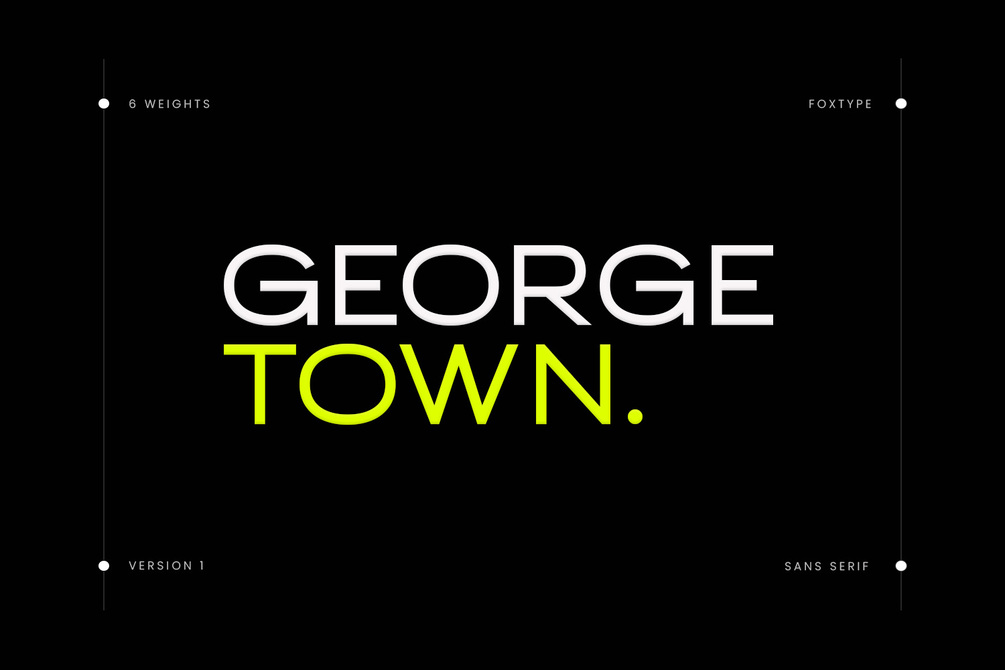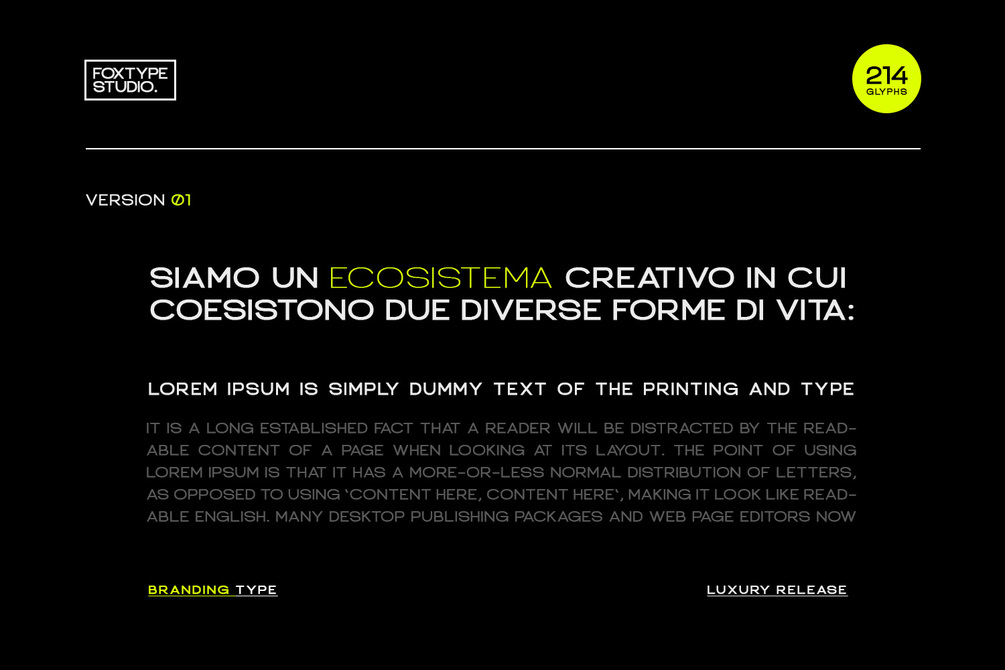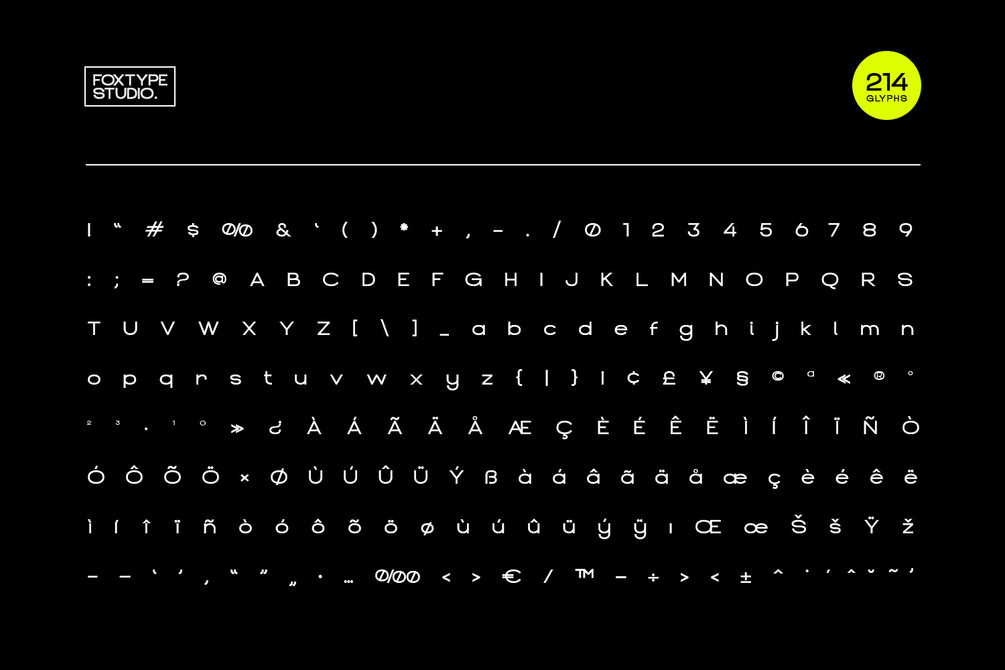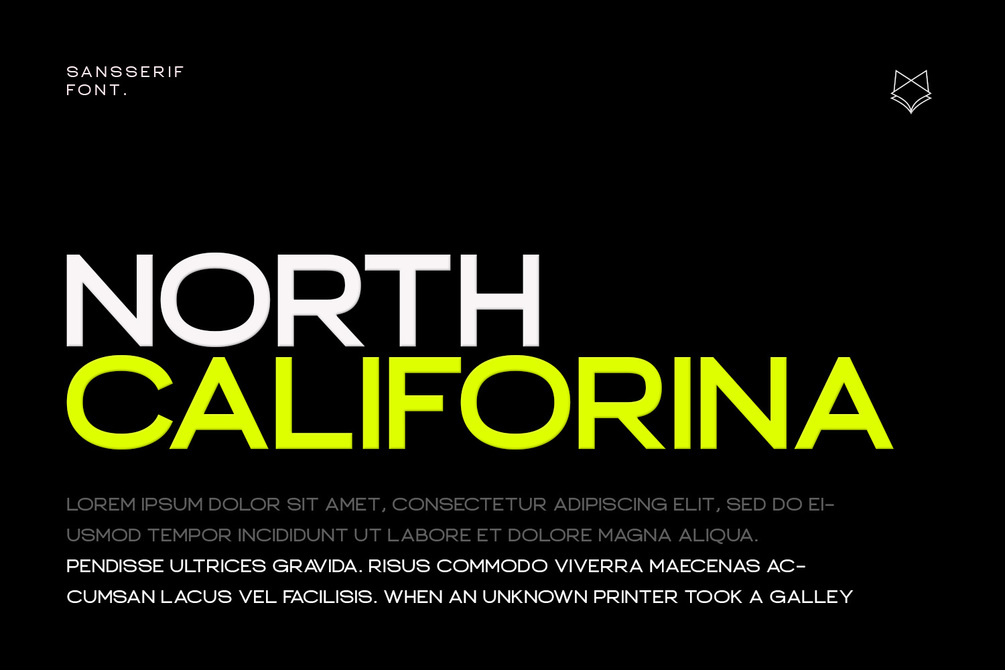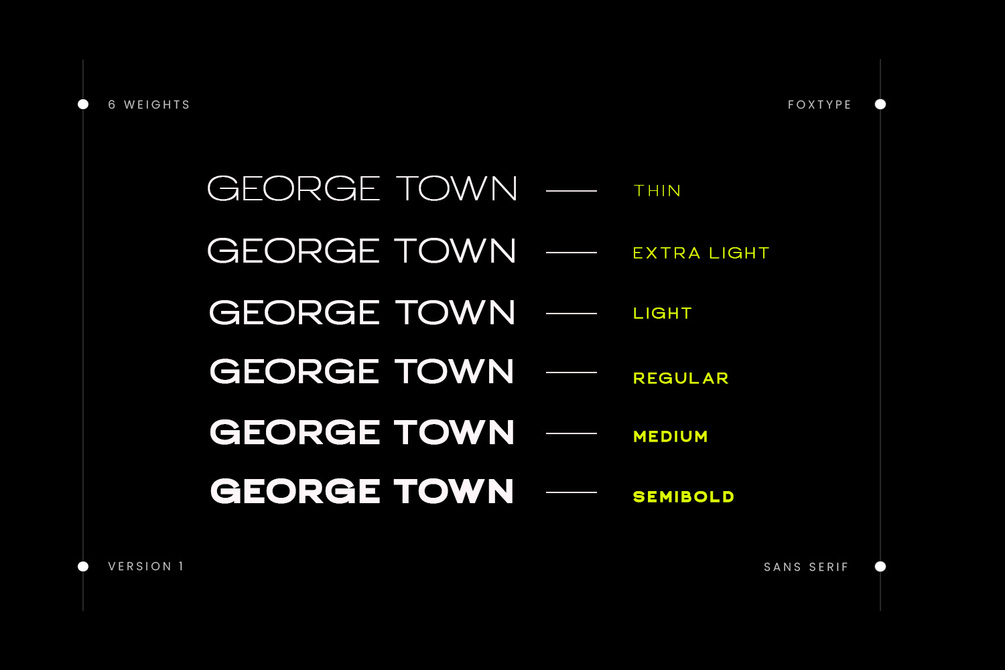
GeorgeTown Display Typeface
Introducing George Town new generation Typeface with 6 Weights. George Town Typeface created with the vision of to attract the audience to your brand . The finest details of this typeface are methodically and mathematically created. George Town is created with all the tasks of a corporate font and also for the usage in a variety of projects, including branding, logos, titles, headlines, servers, screens, display, digital ads, and everything else.
We are putting a lot of effort on this font as a long-term project. The Typeface includes Six Weights. Thin, ExtraLight, Light, Regular, Medium, and SemiBold
- Numerals, extended punctuation & Basic Symbols(200+ Glyphs).
- Expert kerning and quality crafting.
- Uppercase Letters & Lowercase Letters